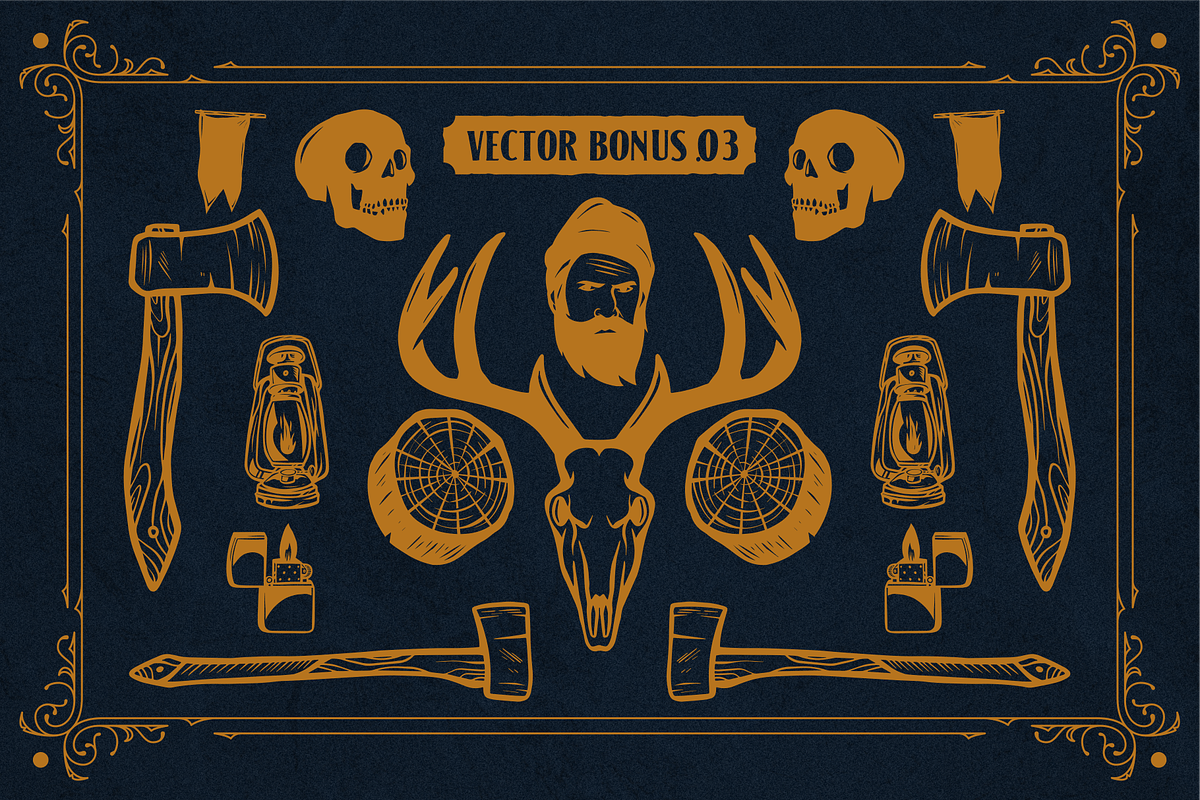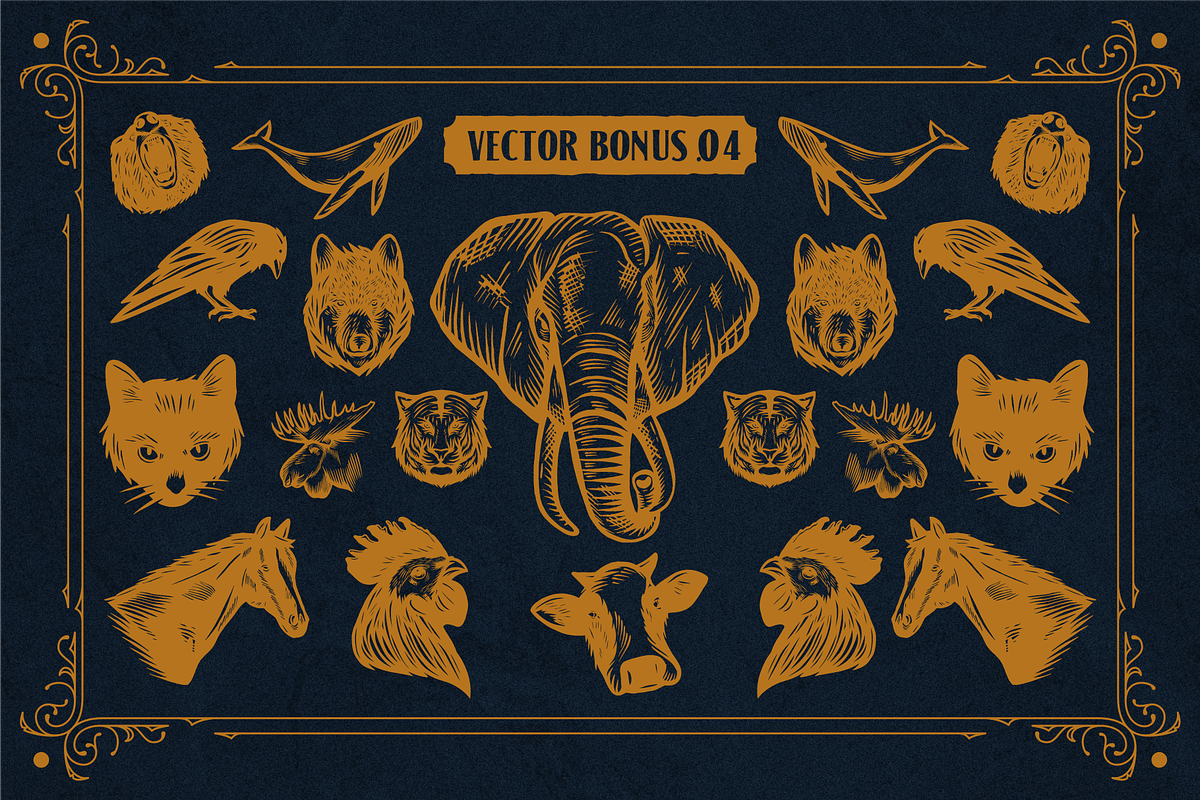
American Label Vintage
AmericanLabel is typeface vintage font. Its masculine style makes it perfect for logos, typography, and product labels that require a classic and masculine touch. This font is available in 3 styles, namely, clean, rough and striped.
- Vector Bonus 15++ in handdrawn style
- Standard English character,
- Number,
- Uppercase & Lowercase,
- Punctuation,